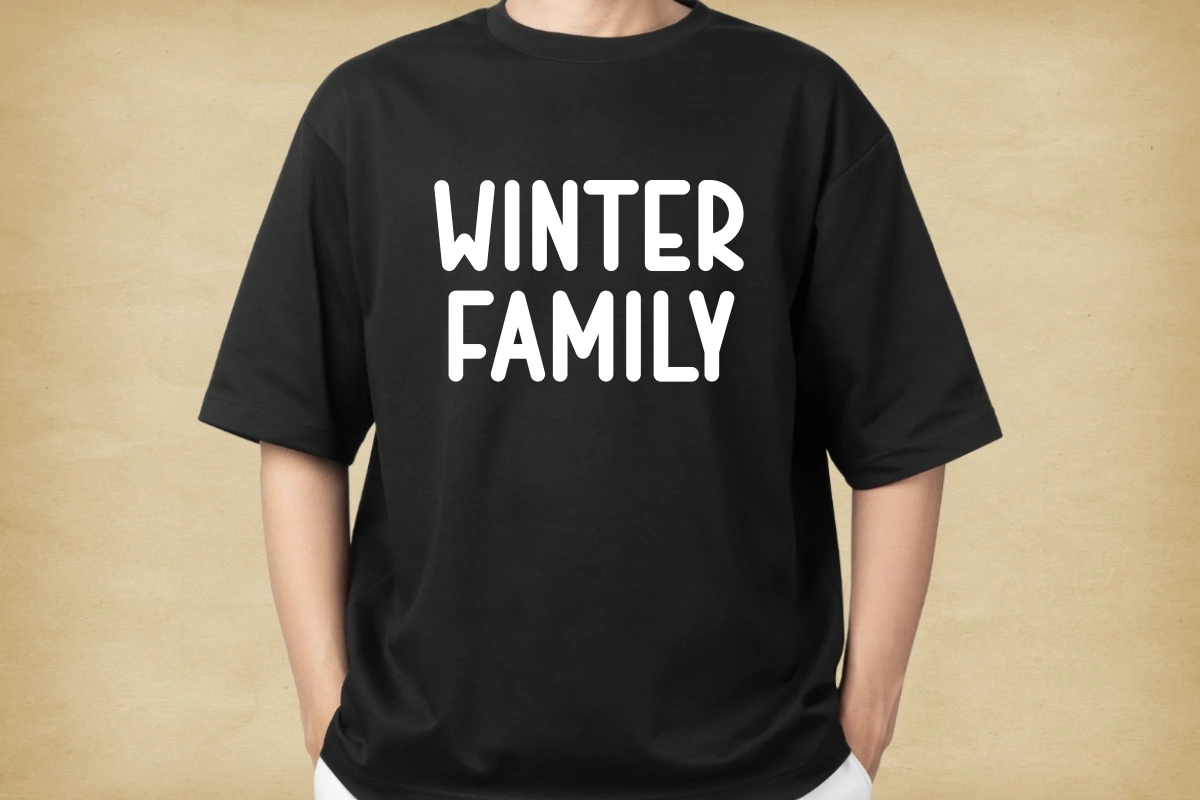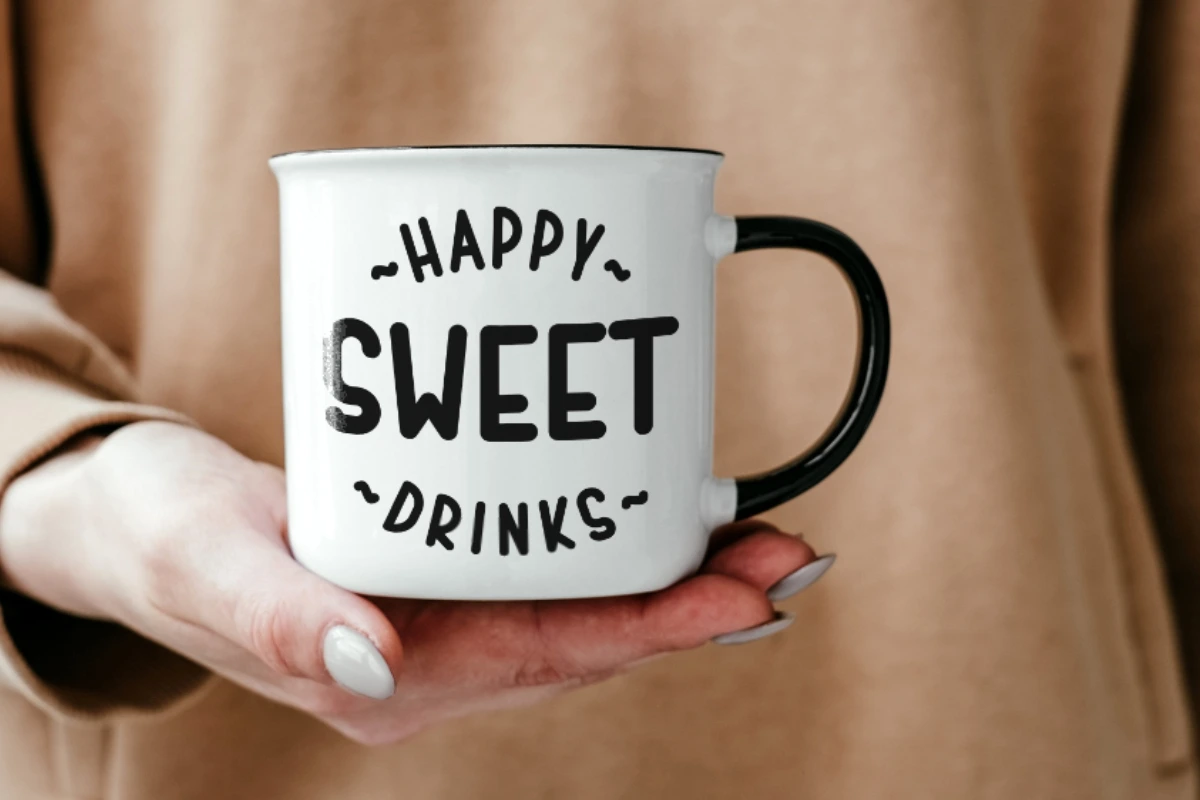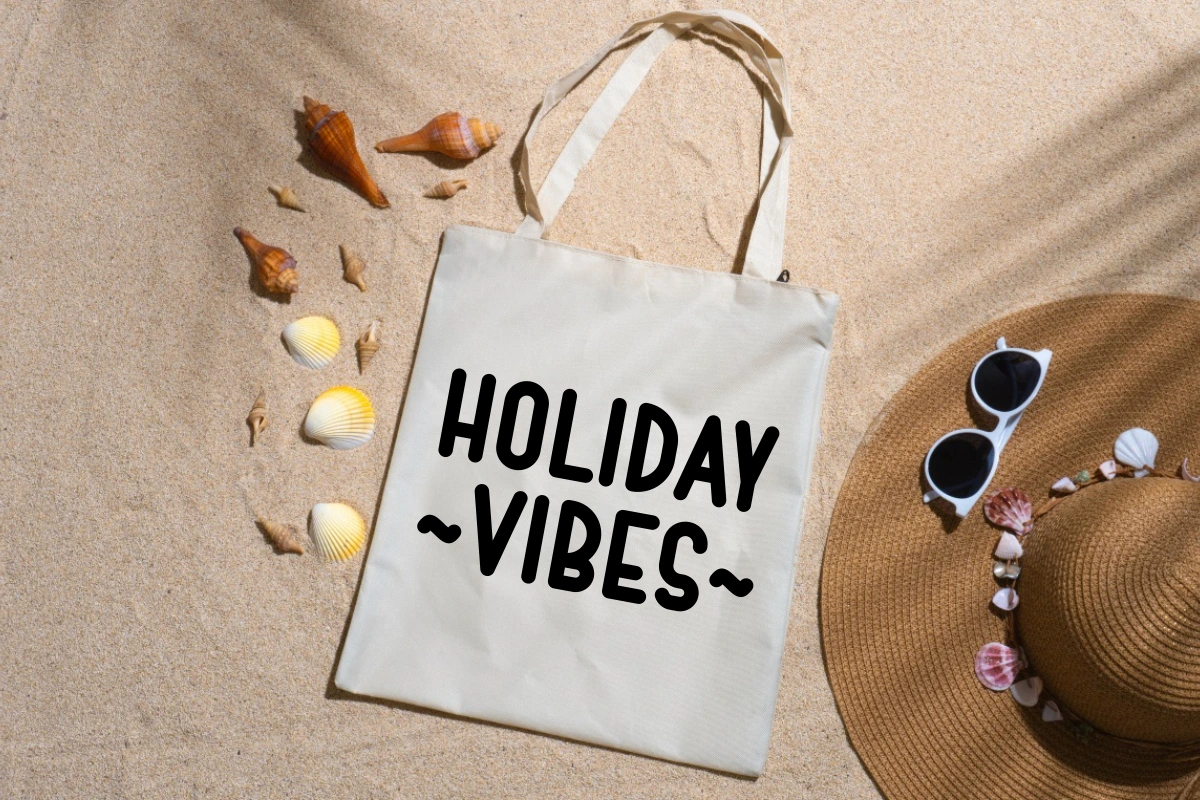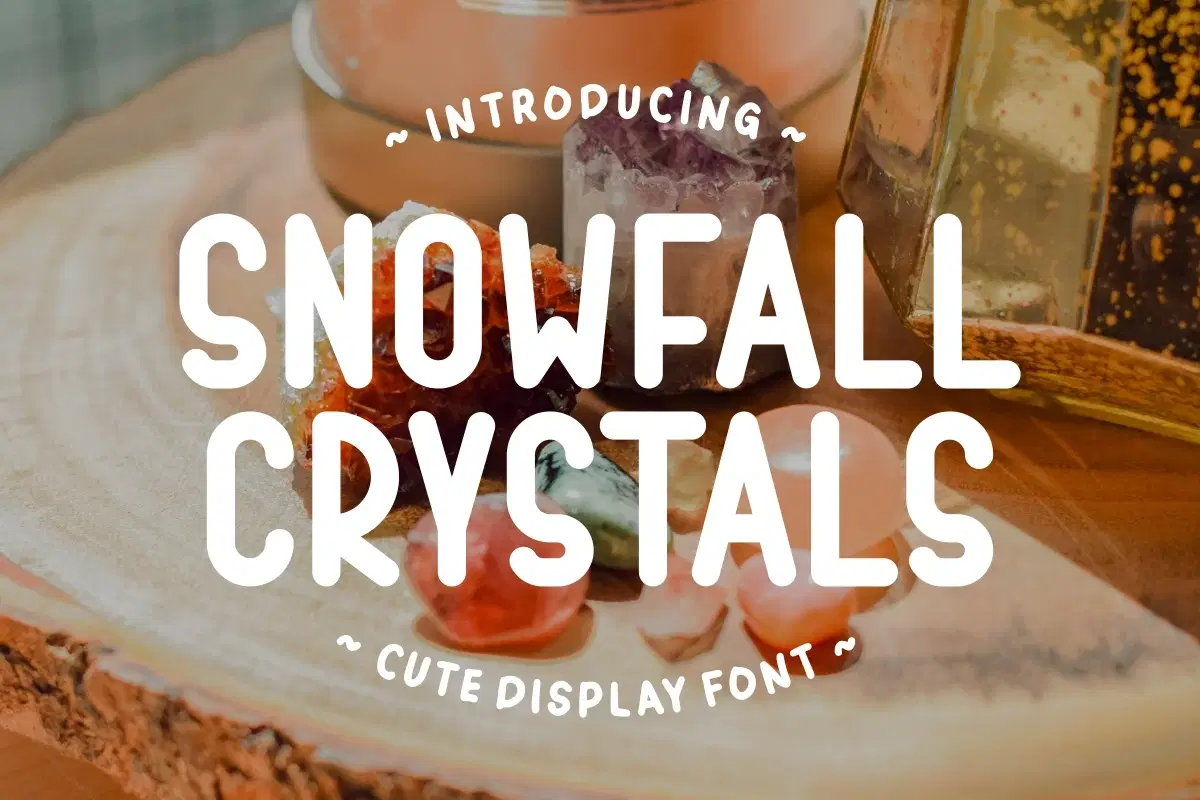
Snowfall Crystals - Cute Display Font
Snowfall Crystals the whimsical display font that encapsulates the magic of Christmas and the enchantment of falling snow. This charming typeface is designed to infuse your holiday creations with an extra dose of cute and festive charm.